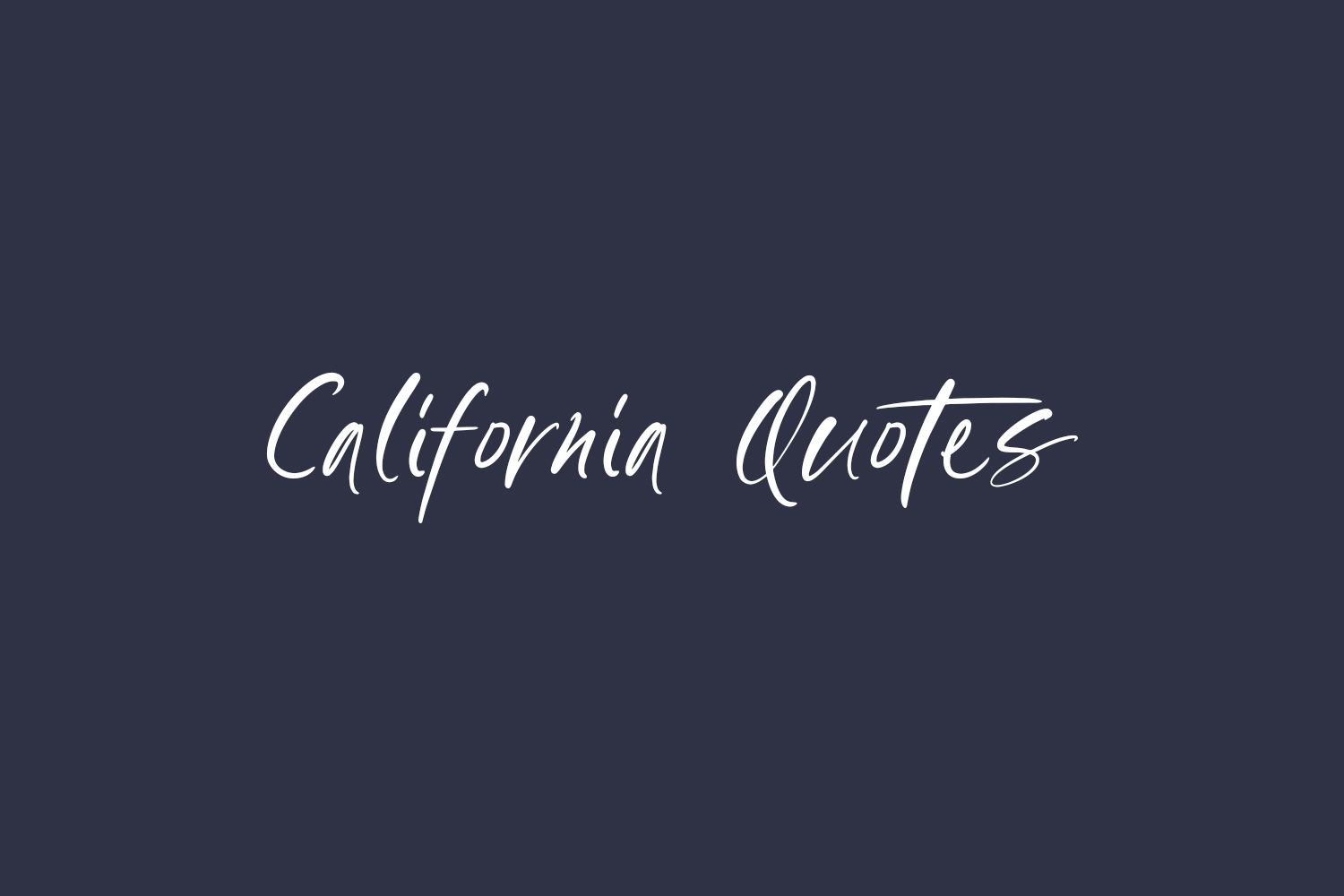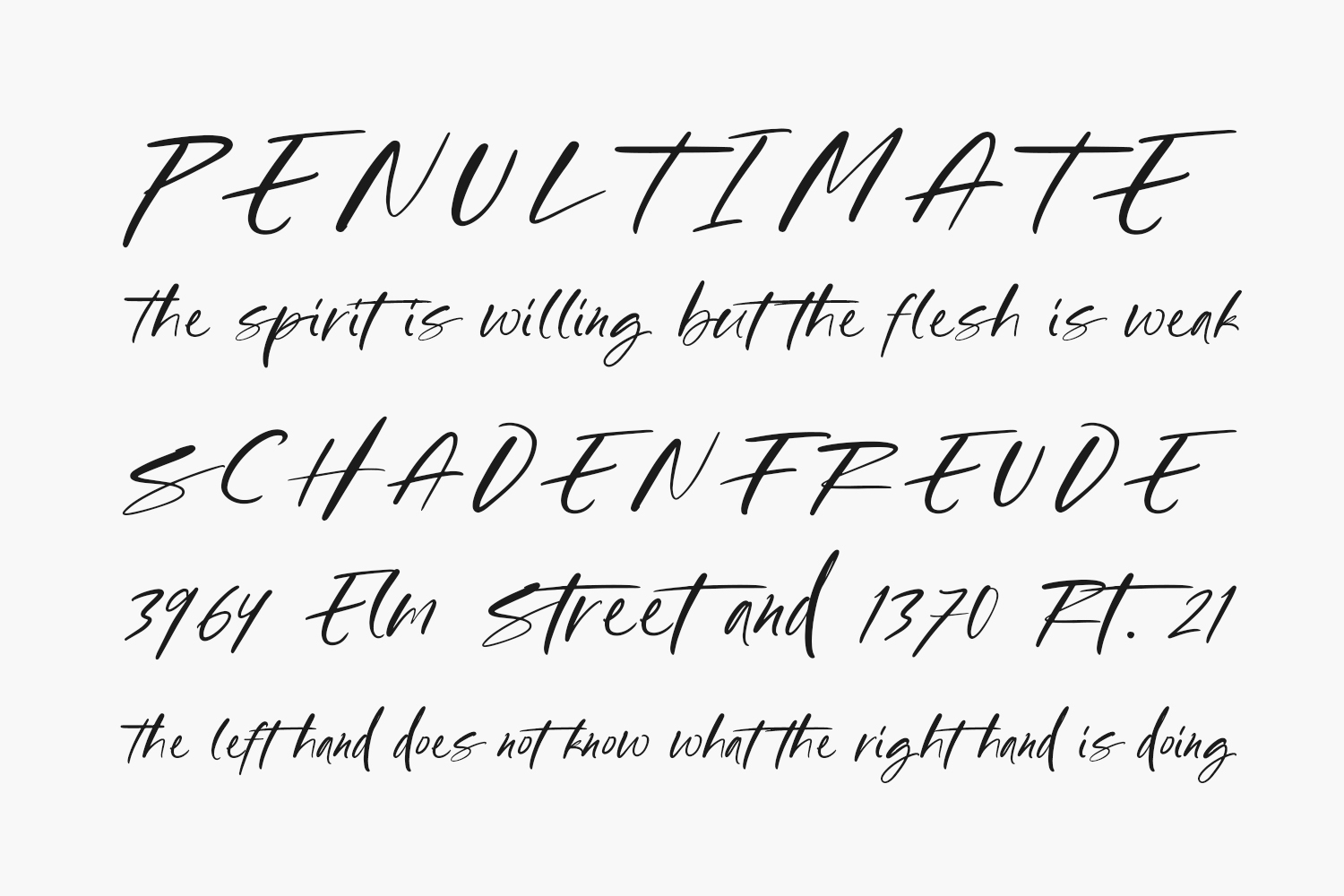
California Quotes Free Font is a lovely and relaxed script font that exudes elegance and class. This font was particularly crafted for those who need a beautiful and refreshing look to their designs. California Quotes Free Font was designed by Letterhend Studio and is free for personal use only. Please purchase the full version for commercial use.